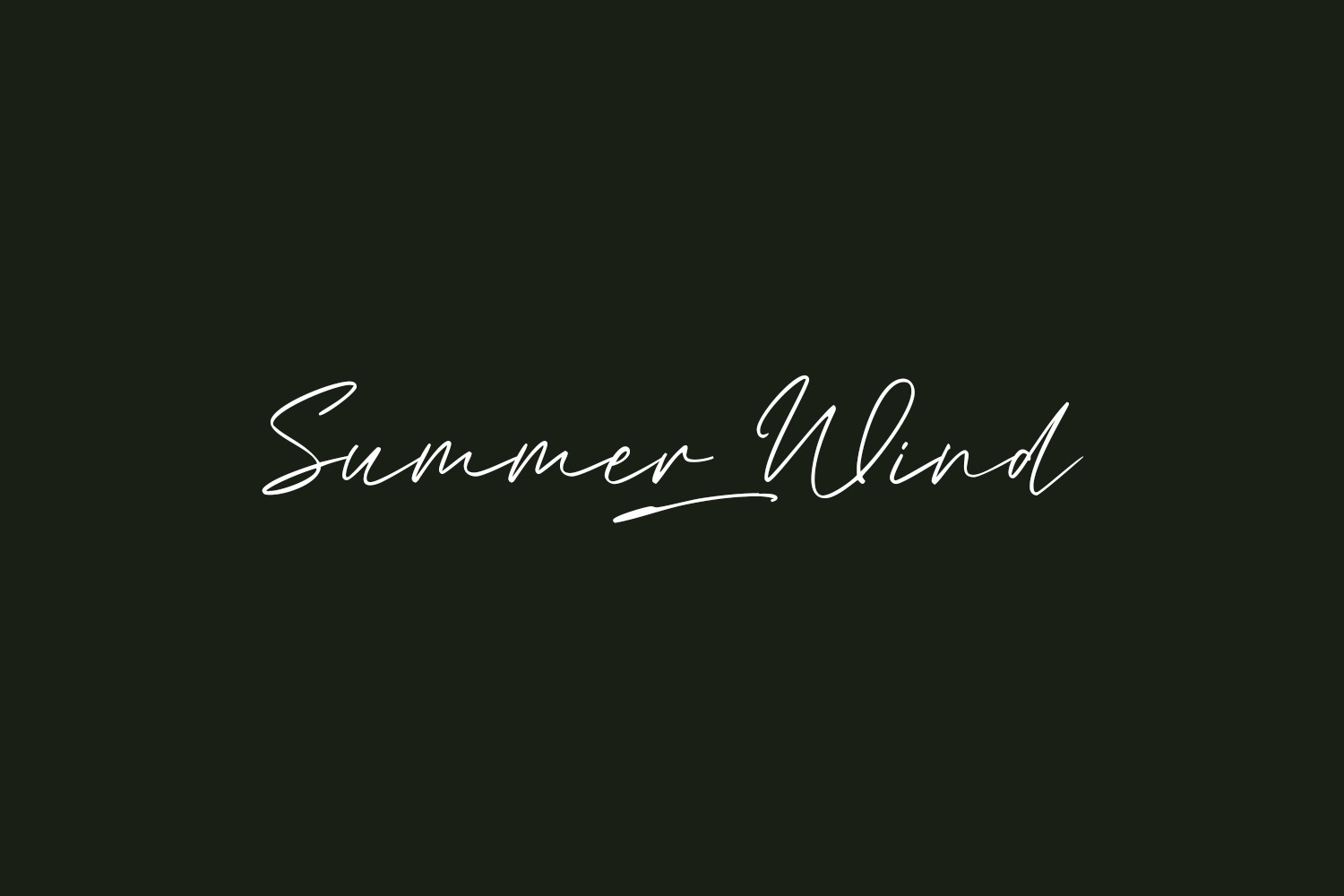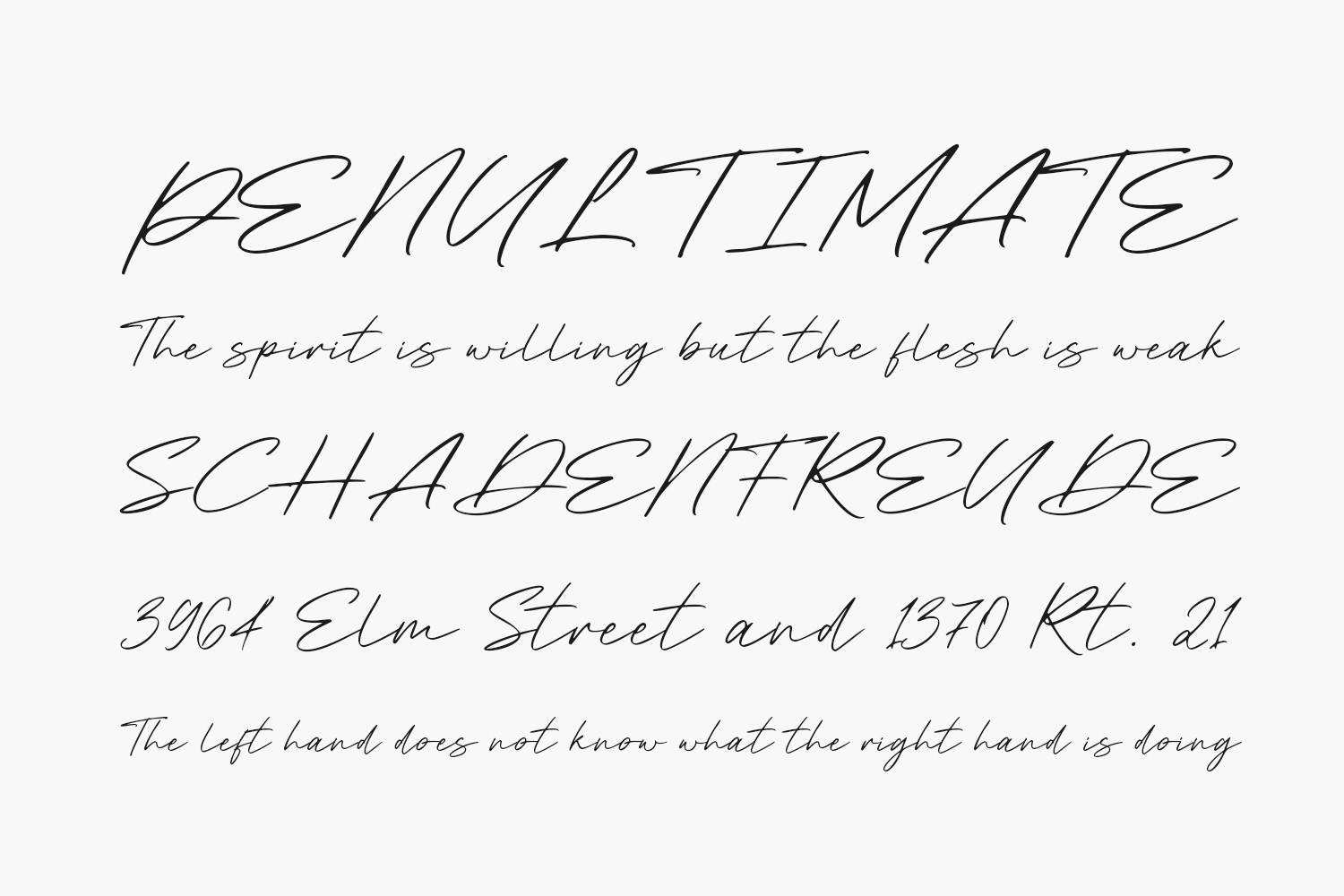
Introducing Summer Wind Free Font: an immaculate, chic, and contemporary script font radiating elegance. Tailor-made for posters, logos, magazines, book covers, banners, and beyond! Embrace this remarkable font to infuse your designs with a touch of allure. Its versatility seamlessly complements an extensive array of projects, ensuring your creative concepts shine uniquely with its inclusion. Grab Summer Wind now and experience its transformative effect firsthand. Summer Wind Free Font is free for personal use only. Please purchase the full version for commercial use.